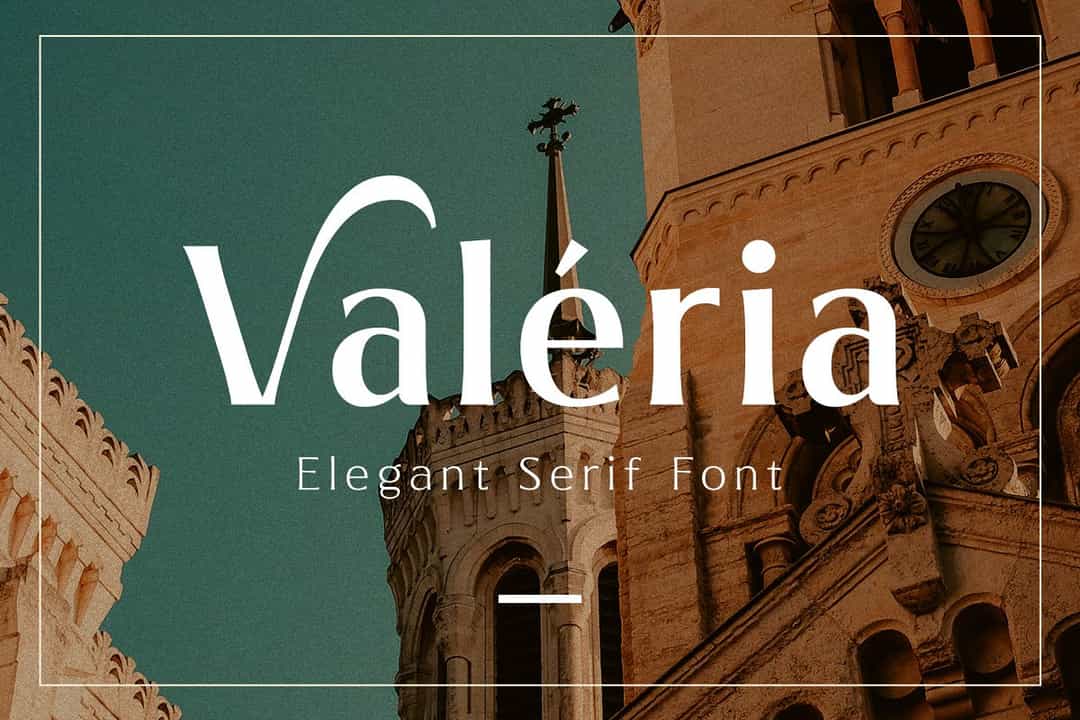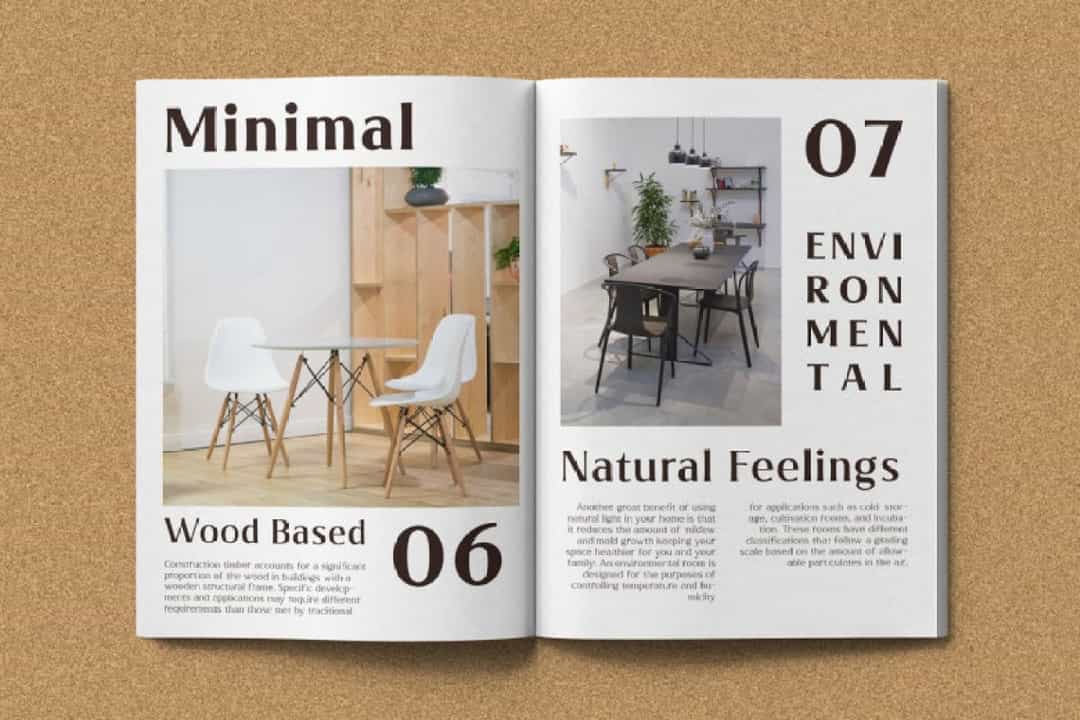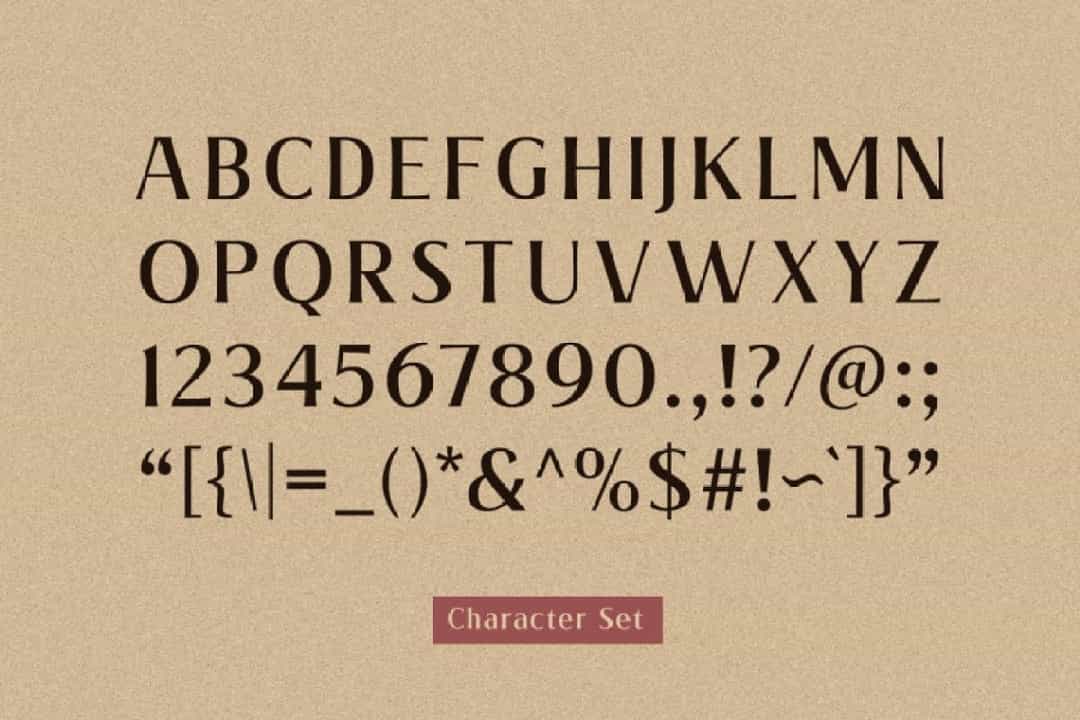
Valeria Elegant Serif Font
Valeria is a beautiful serif font designed with today’s aesthetics and minimalism in the best possible way. Valeria has high contrast on the strokes for a bold look but the typeface is quite simple and it was this sans-serif typeface that was desired to bring elegance and luxury to the shapes. Also, the letter spacing and the design of the letters give this typeface the characteristic of being modern, luxurious and fashionable.